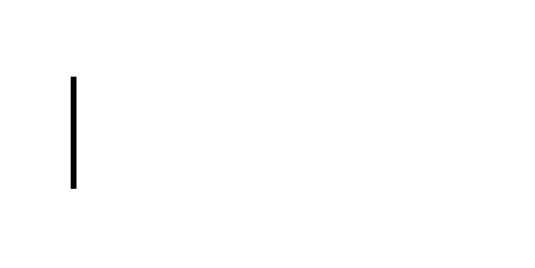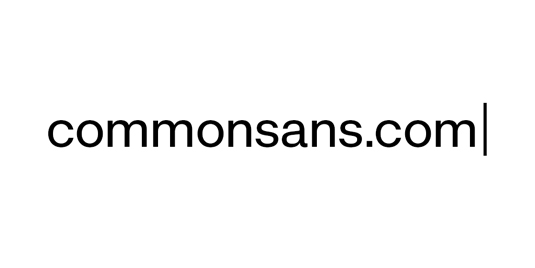
Font of the day: Common Sans
Common Sans from Essen International
Today's typeface of choice is Common Sans, a collaborative effort from the guys at Essen International and Solvatten.
"We sat down to brainstorm around what to do for this year's Christmas project," says Essen's creative director Robert Holmkvist. "After too many explorations of possible combinations of reds and sprinkles of white and compositions of satirical jingles, we decided we wanted to do something a little more meaningful instead and create a hint of awareness in an attempt to make the world a little better, at least one letter at a time.
"We created Common Sans, a typeface that replaces the word refugee with the word human. We just believe that humans are amazing, simple as that. A stamp on their passport should not let us believe otherwise.
"Common Sans is a project designed to make us rethink the words and labels we use to define each other. It is a simple reminder that words are not merely words but carry significant meaning and impact. Being a refugee is a temporary status, being human is permanent."